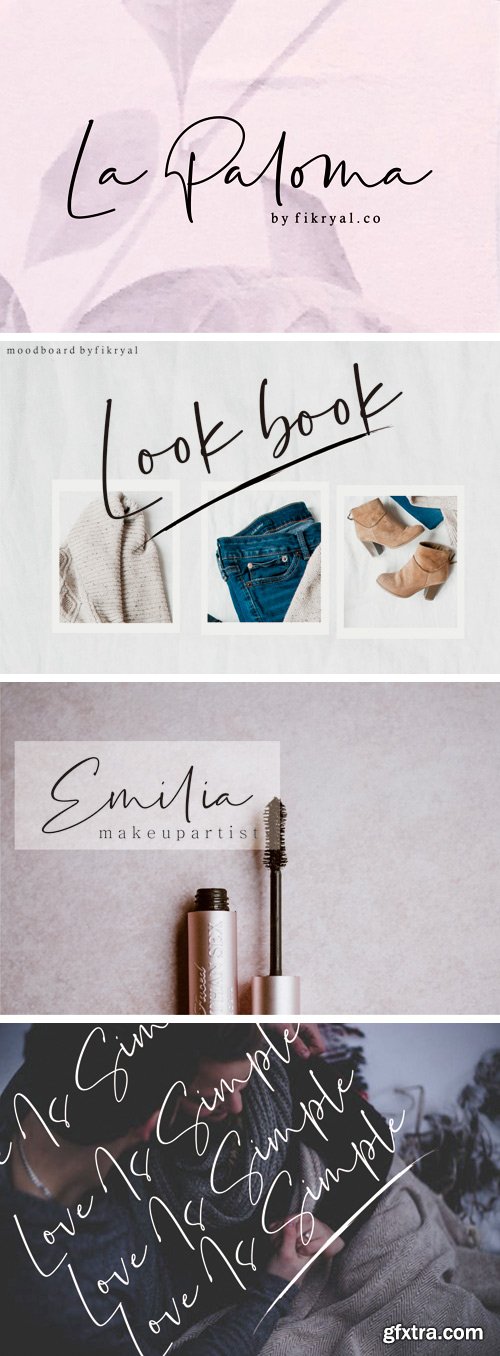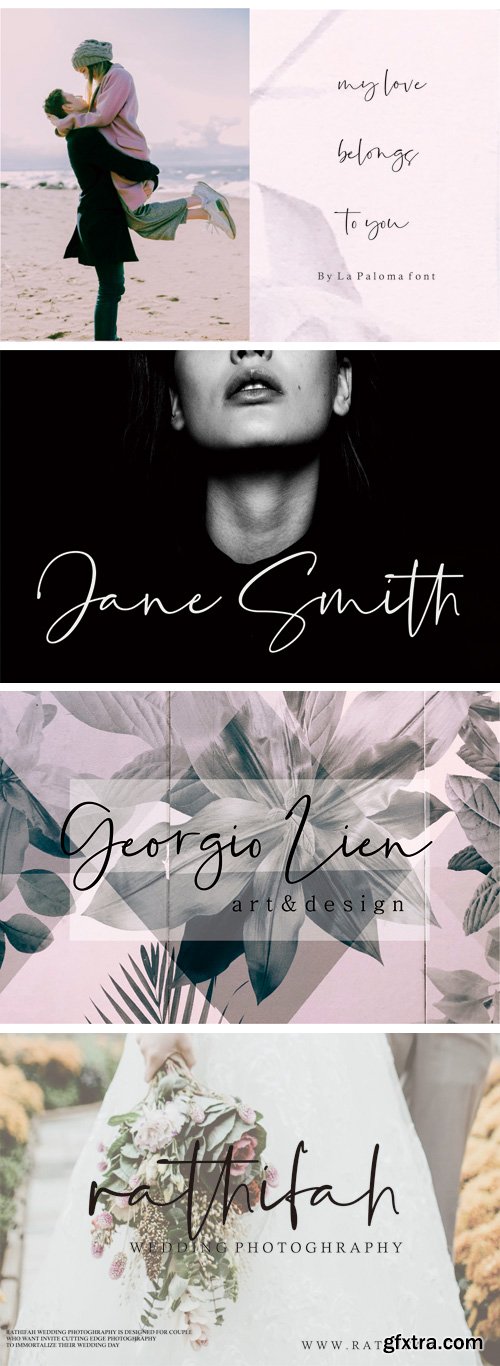
字体包 - La Paloma // 真 handwriting 字体
La Paloma is a handwritten font, this font is perfect for your needs such as: logos, posters, handwriting, mockup, magazines, business cards and others.